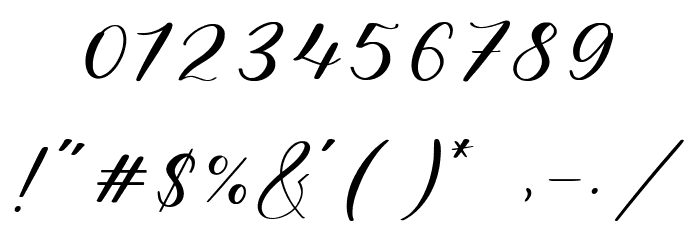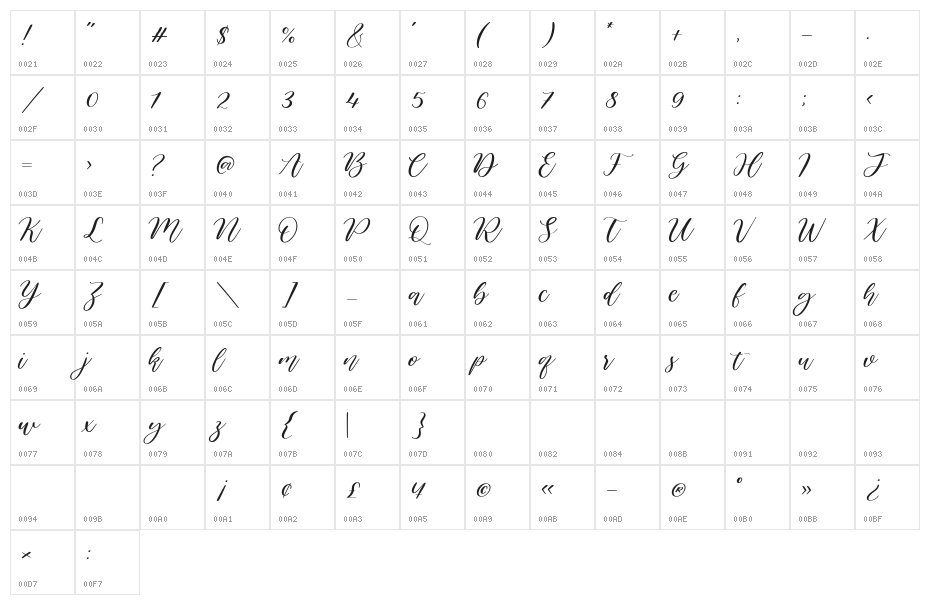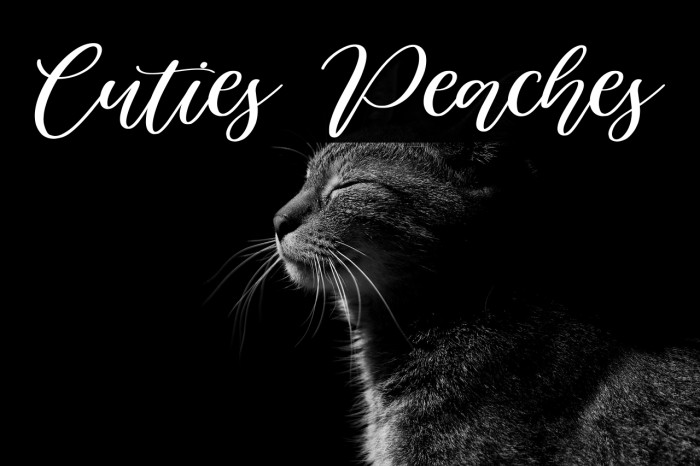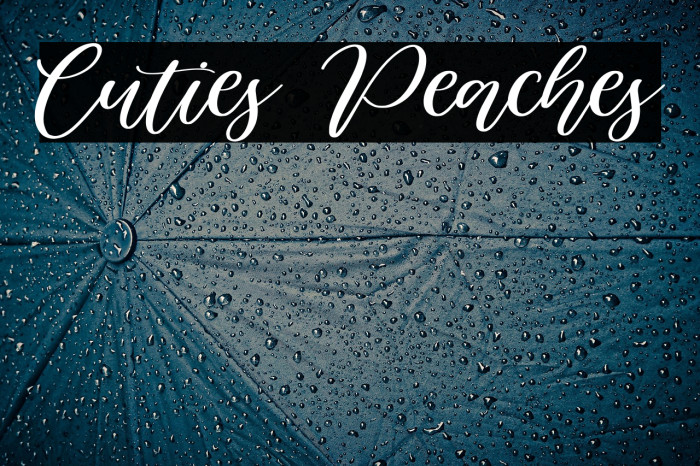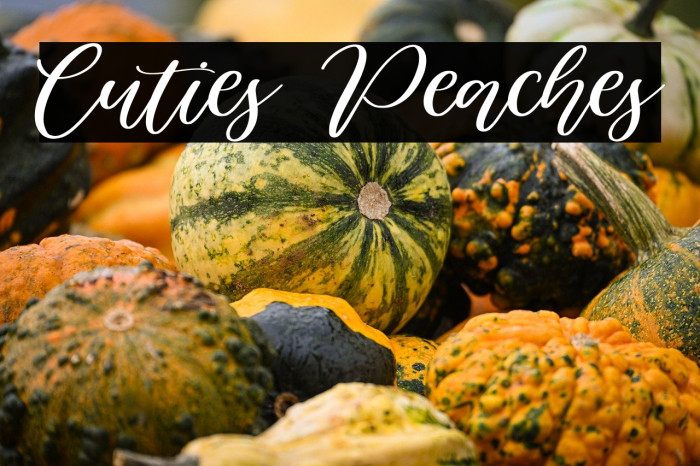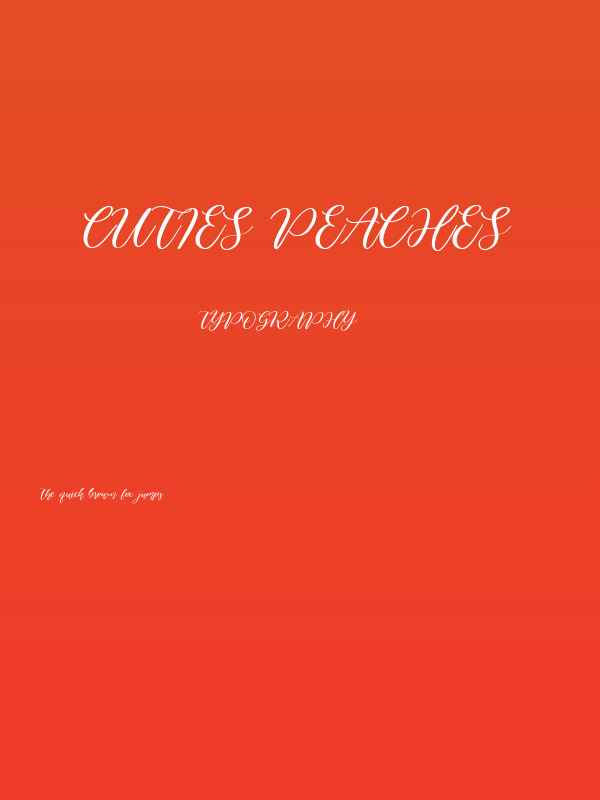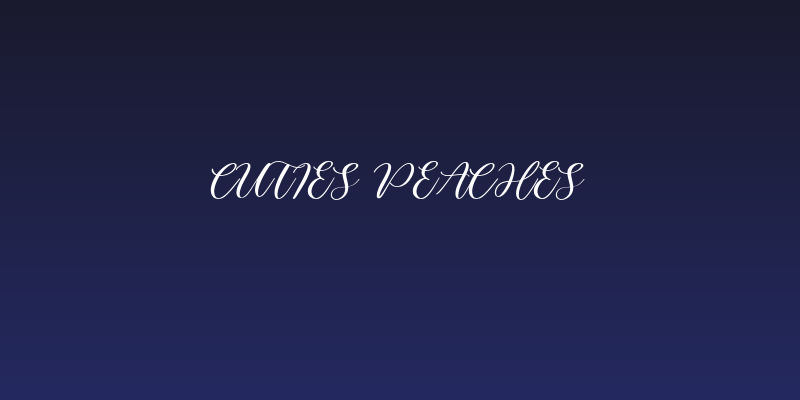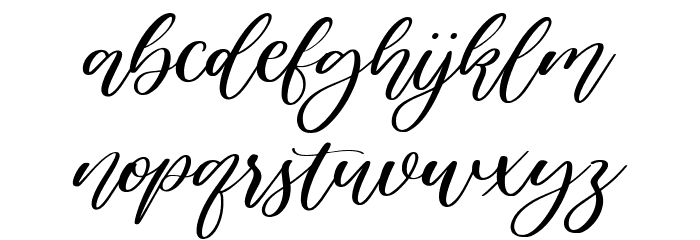
Cuties Peaches Font
Cuties Peaches Description
This font features a flowing, elegant script style with a modern touch. The letters are interconnected with smooth, sweeping strokes, creating a sense of fluidity and grace. The uppercase letters are particularly ornate, with extended flourishes that add a decorative flair. The lowercase letters maintain a consistent rhythm, enhancing readability while retaining the font's artistic charm. Numbers and special characters are designed with the same attention to detail, ensuring a cohesive look across all text elements. The overall appearance is both sophisticated and approachable, making it suitable for a variety of design contexts.